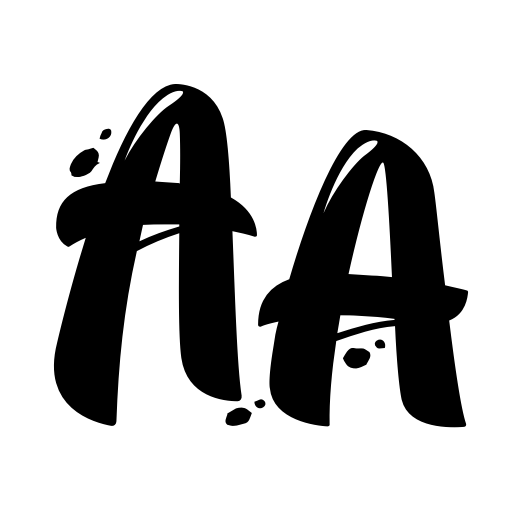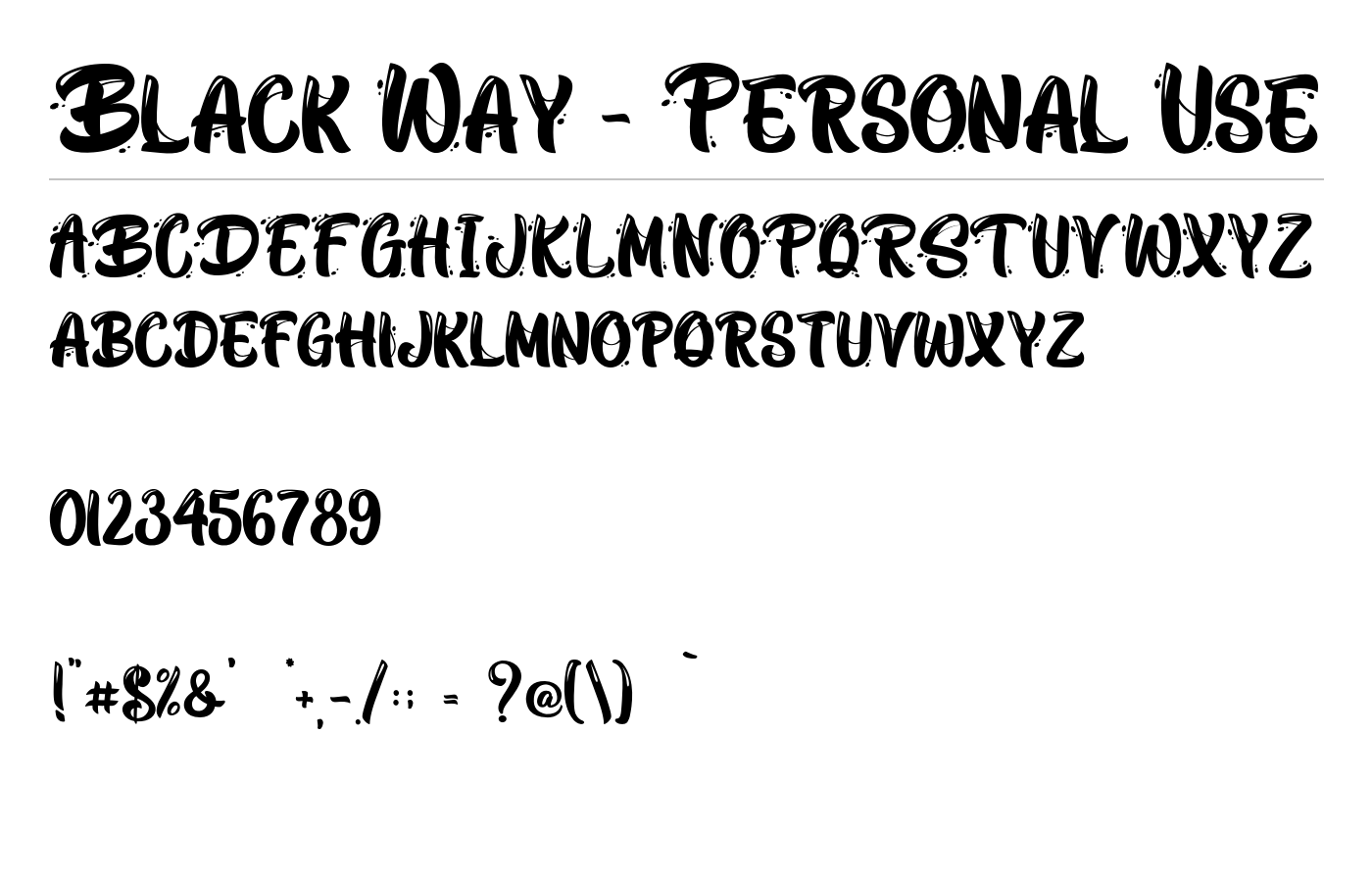
Black Way is a bold, playful brush script font featuring lively, irregular strokes and scattered ink splatters that give it a dynamic, handmade feel. Its high contrast and informal style make it perfect for creative branding, casual headlines, and any design needing an energetic, youthful vibe. This font works especially well in playful packaging, posters, and social media graphics where a fun and approachable personality is desired.
Black Way - Personal Use Font